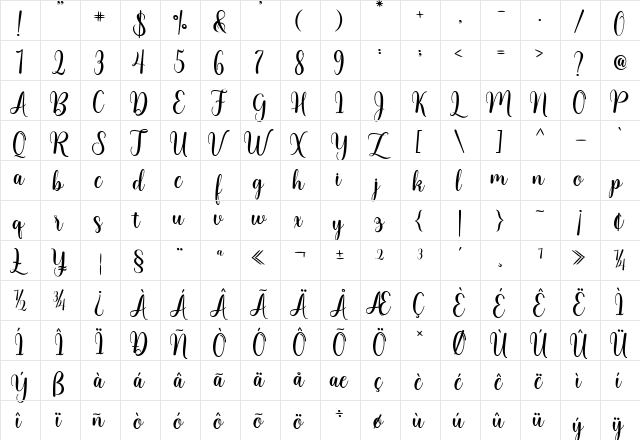
mellisahella Regular
Design Context for mellisahella Typeface
mellisahella is a composed and adaptable typeface that performs quietly and consistently across a wide range of design contexts.